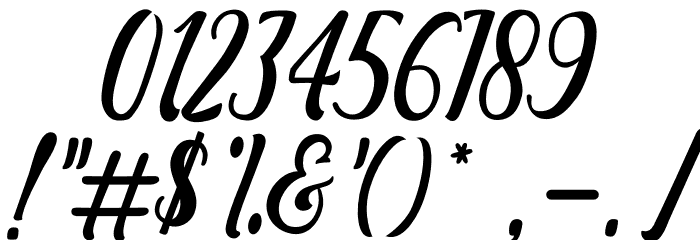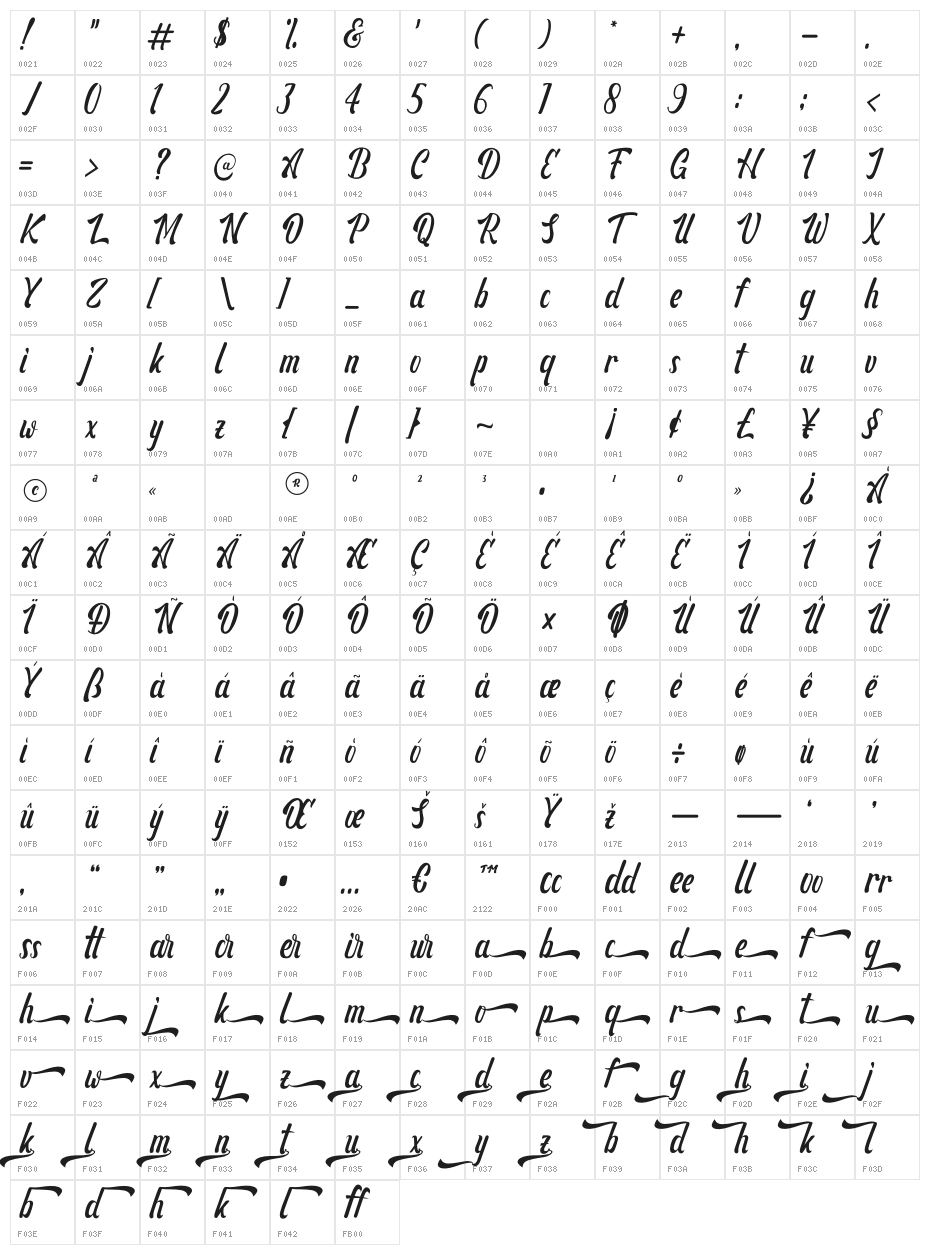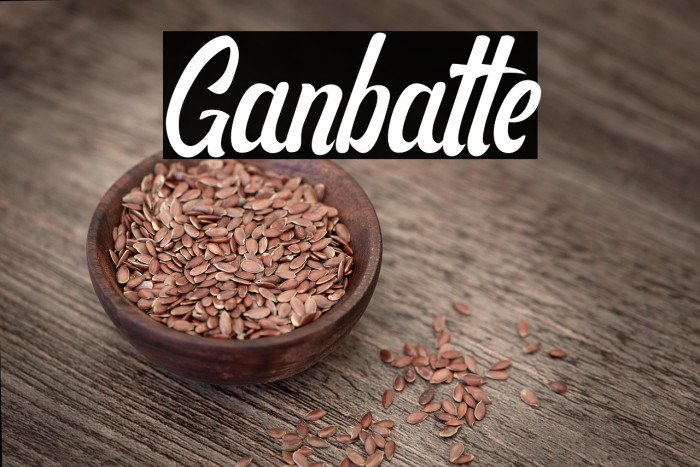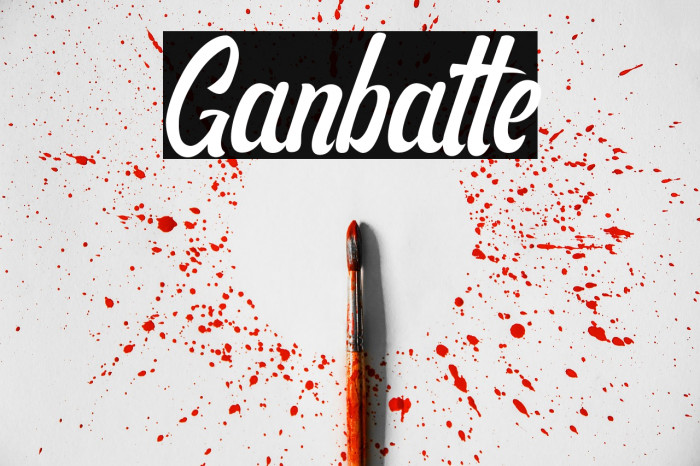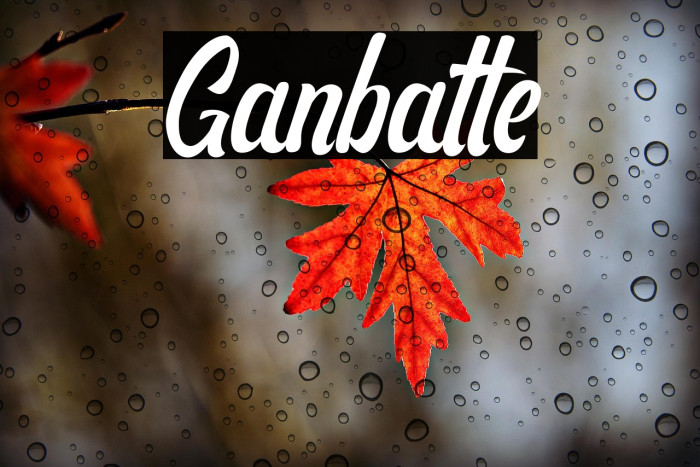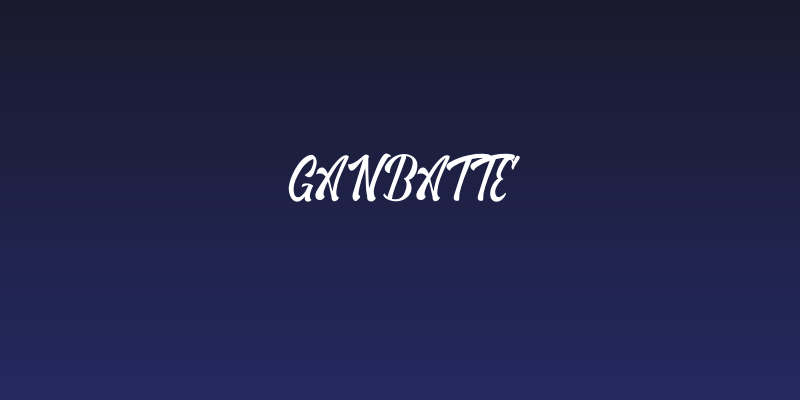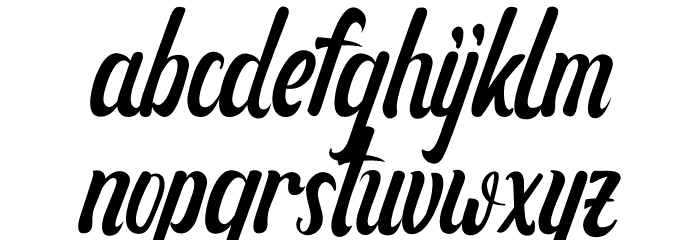
Ganbatte Font
Ganbatte Description
This font features a dynamic and flowing script style, characterized by its elegant and cursive letterforms. The strokes are smooth and connected, giving it a handwritten appearance. The uppercase letters are bold and slightly slanted, while the lowercase letters maintain a consistent flow with subtle variations in stroke thickness. The numerals are clear and legible, matching the overall style of the alphabet. Special characters are well-integrated, maintaining the fluidity of the script. This font exudes a sense of sophistication and creativity, making it suitable for various artistic and formal applications.
| Overall Style | Elegant, Creative |
| Proposed Projects | Ideal for wedding invitations, greeting cards, logos, and branding materials that require a personal touch. |